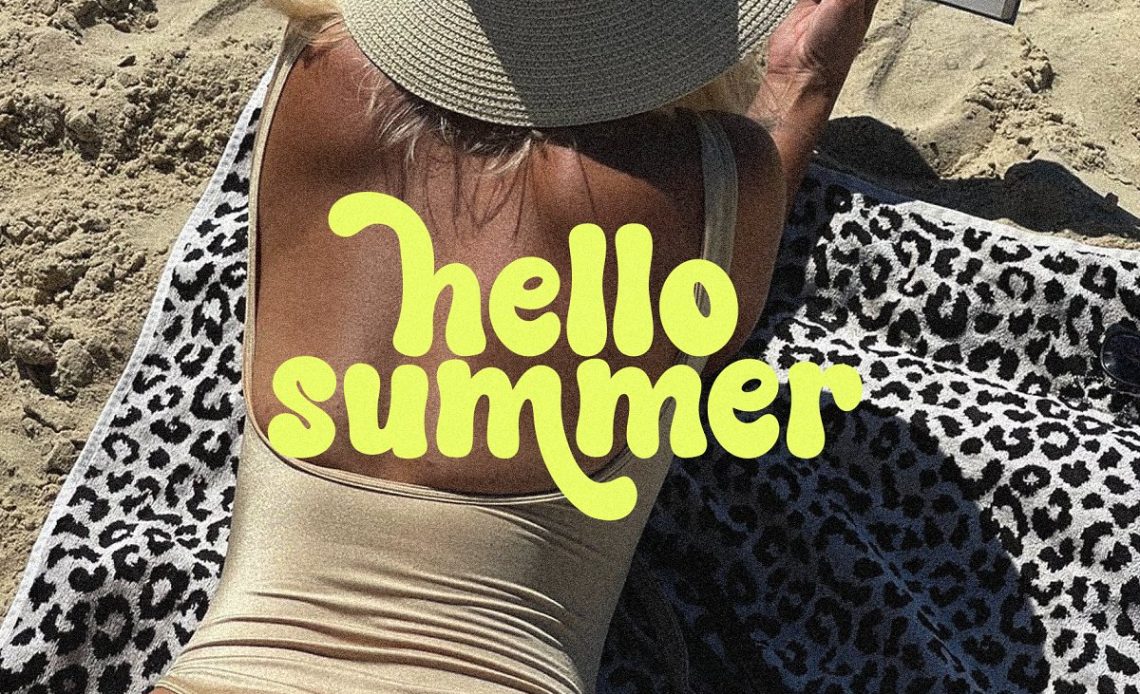
Introducing With Love, the groovy retro font that will transport you back to the good old days of the 70s. Created by the talented Kaitlynn Albani, this hand-drawn font is a perfect blend of modern boho and nostalgic vibes.
With Love is not just any ordinary font; it is a font that oozes personality and charm. Its captivating design will instantly catch the eye of anyone who comes across it. Whether you're a designer, a business owner, or a social media enthusiast, this font is a must-have for you.
Branding has never been more exciting with With Love. Imagine your logo or product packaging adorned with this unique and eye-catching font. It will instantly elevate your brand and make it stand out from the crowd. With Love is also perfect for creating stunning stickers, SVG designs, and even stylish shirts that will make heads turn.
Social media is all about making a statement, and With Love is here to help you do just that. Use this font to create captivating posts, stories, and advertisements that will leave your followers in awe. Its retro charm will transport them to a world of nostalgia and make them fall in love with your content.
But that's not all! With Love is versatile and can be used in various design projects. Whether you're working on a flyer, a brochure, or a website, this font will add a touch of elegance and uniqueness to your creations. Its smooth curves and playful letterforms will make your designs truly unforgettable.